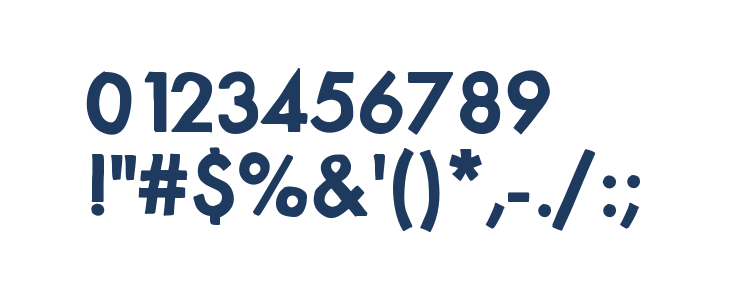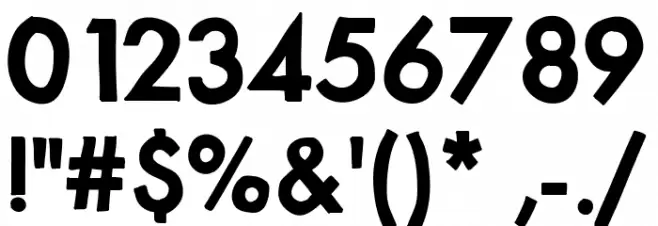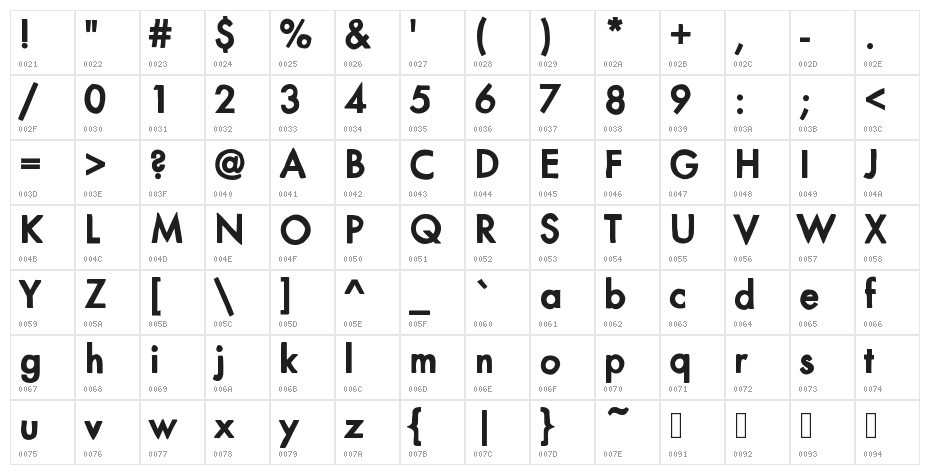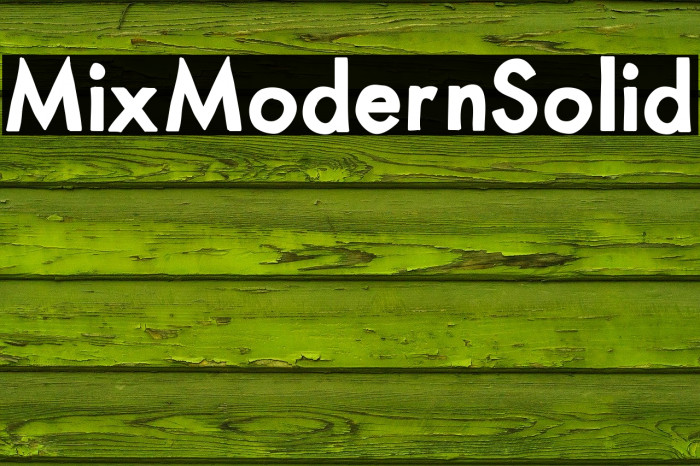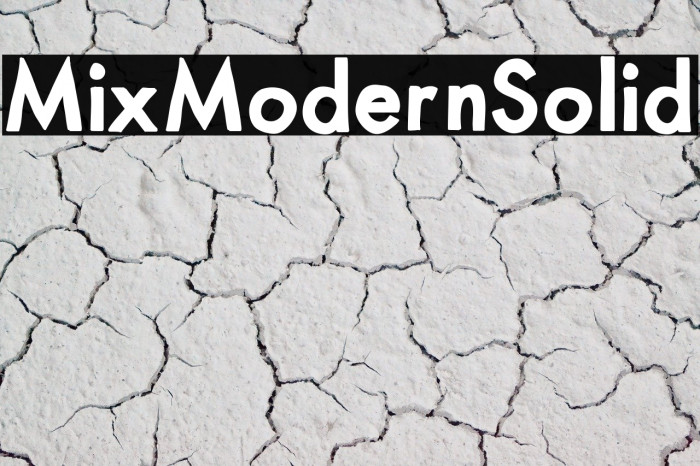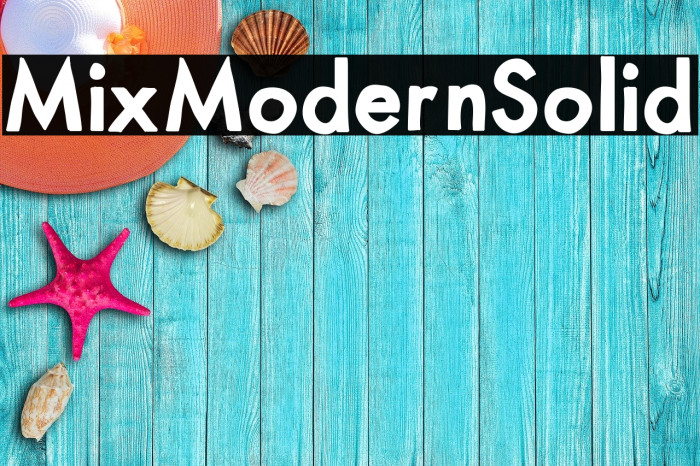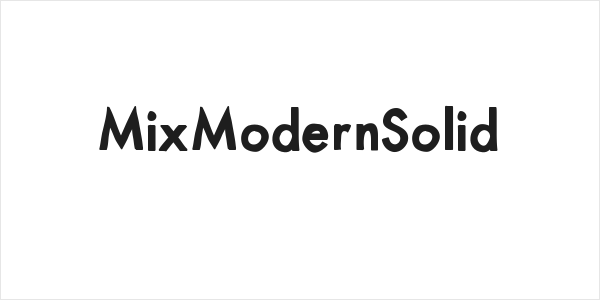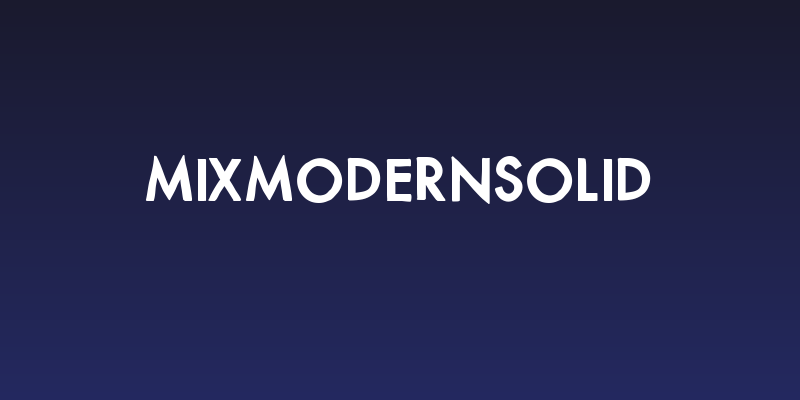
MixModernSolid Font
MixModernSolid Description
This font features a bold and modern design with clean, geometric shapes. The uppercase letters are strong and assertive, while the lowercase letters maintain a consistent weight, offering a harmonious balance. The numerals are clear and legible, making them suitable for various applications. Special characters are well-integrated, maintaining the overall aesthetic. The font's solid structure and uniformity make it versatile for both digital and print media. Its contemporary style is ideal for projects that require a modern and professional appearance.